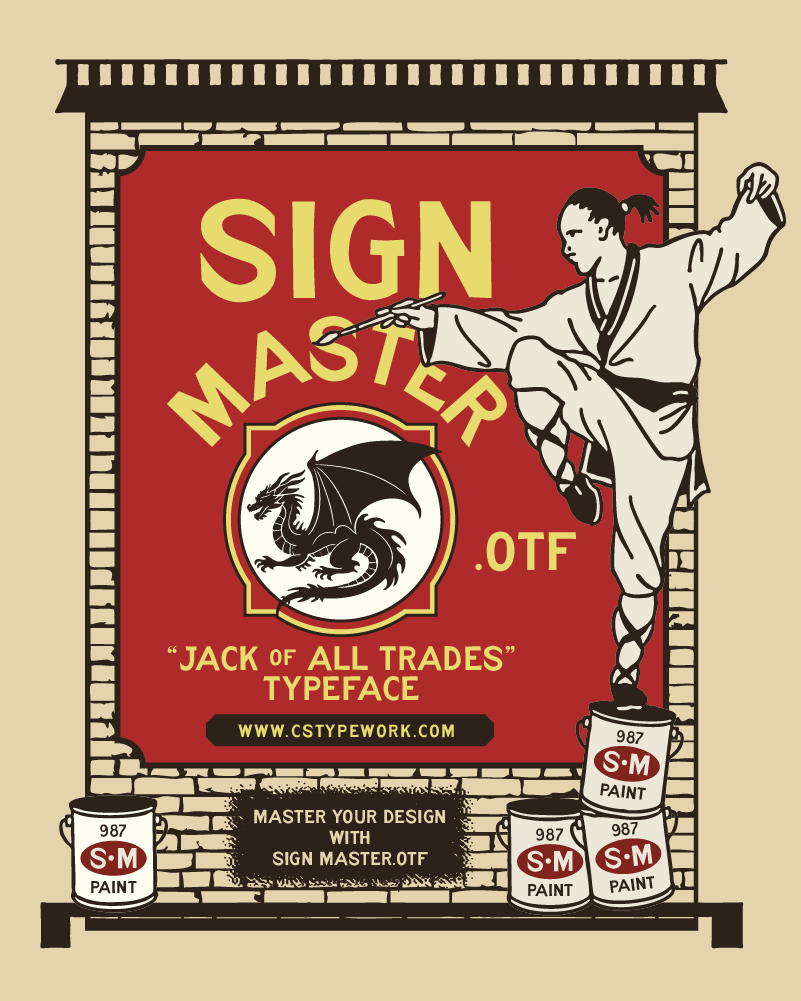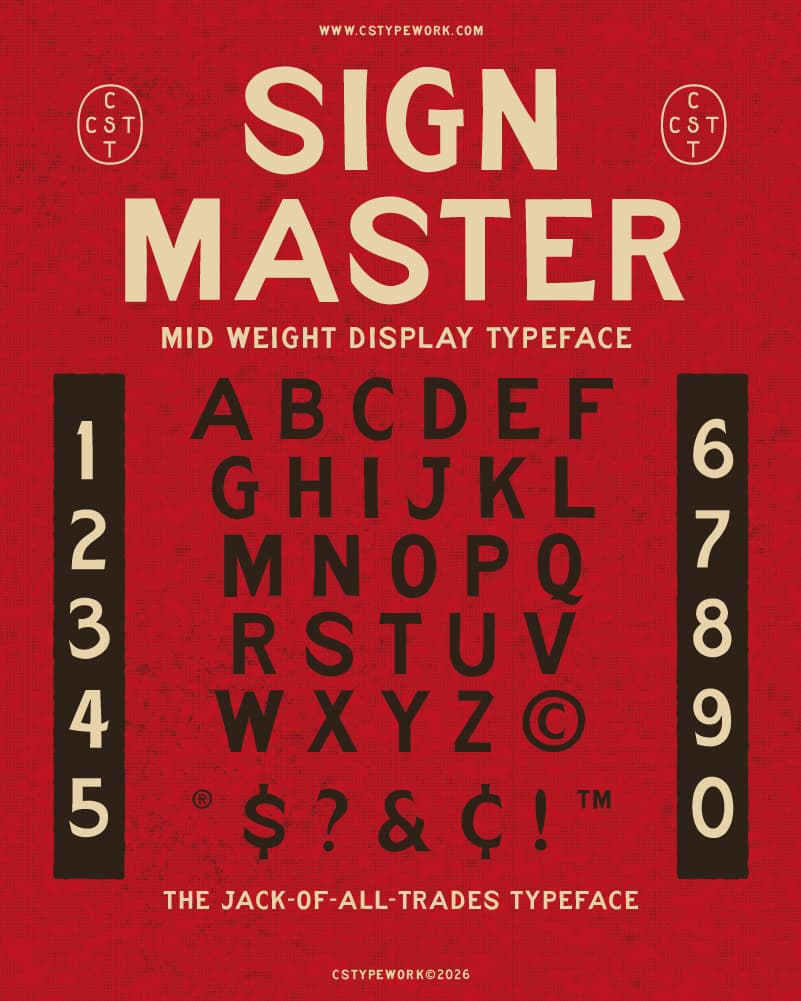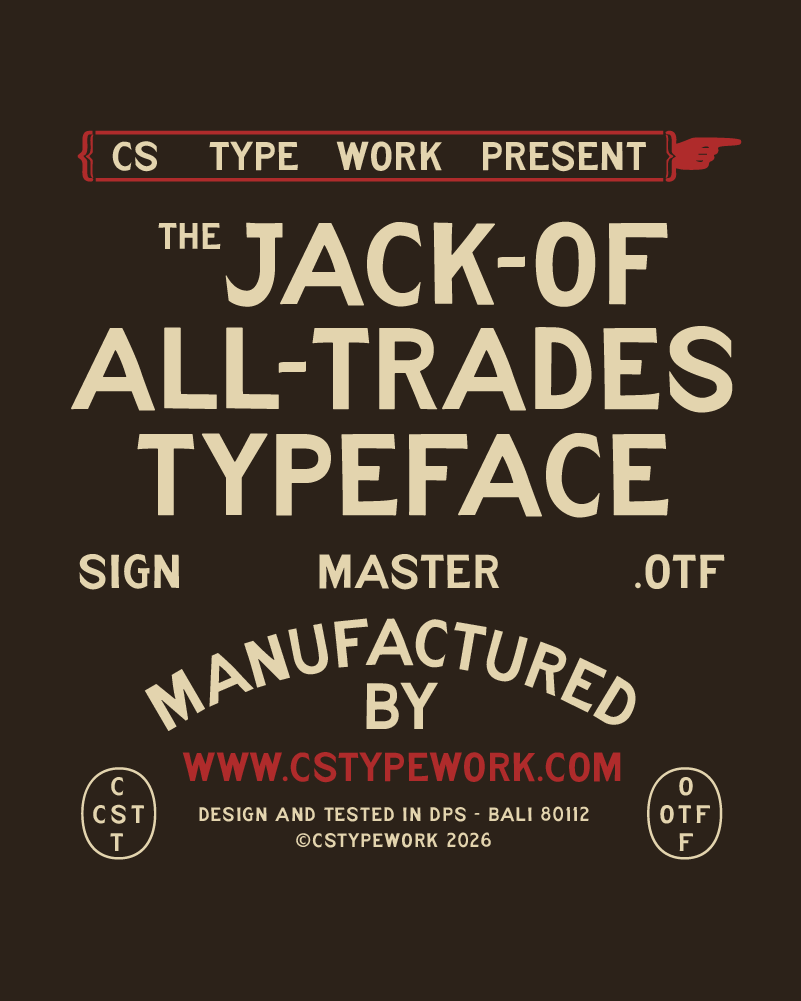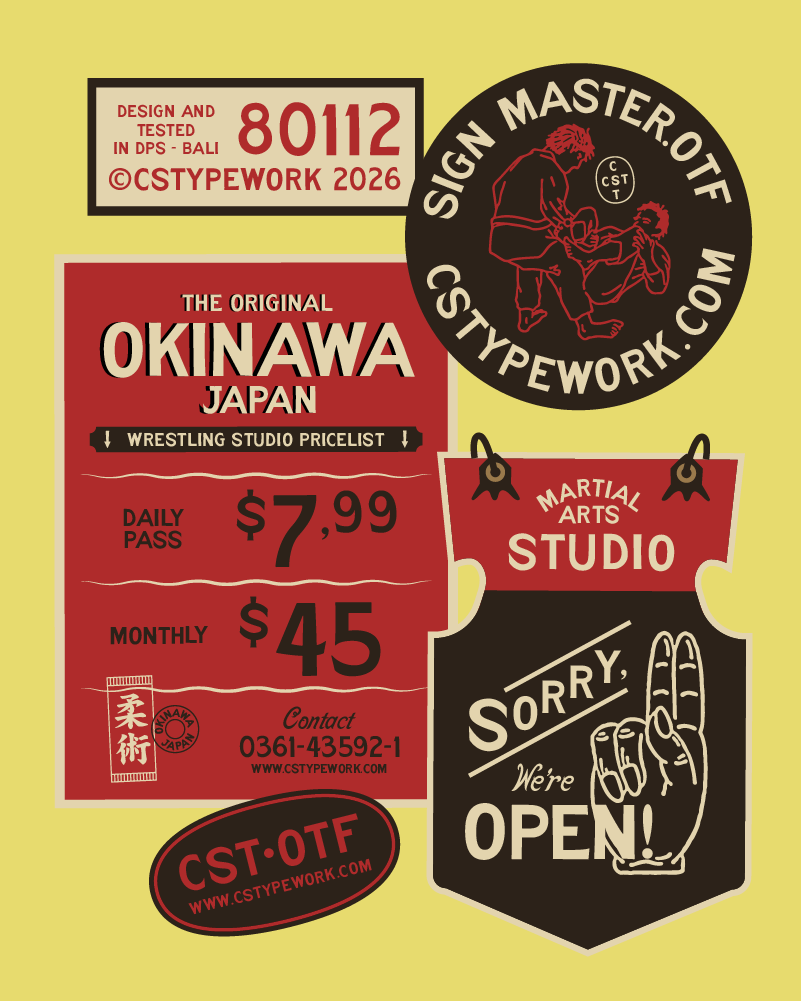
SIGN MASTER CST
SIGN MASTER CST is a clean sans-serif inspired by classic storefront lettering and the golden era of hand-painted signs.
The letterforms are simple, balanced, and highly readable—built with the practical charm of traditional sign craft.
SIGN MASTER CST keeps things straightforward, dependable, and timeless.
Because good signs don’t whisper—they speak clearly.